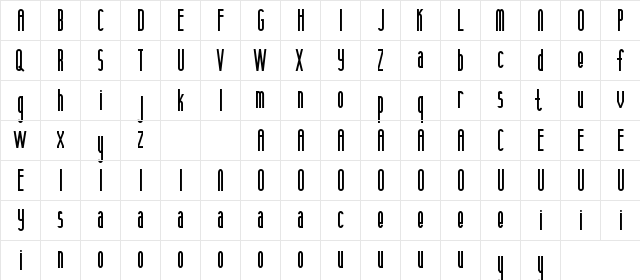
Anamelia Demo Condensed Regular
| Foundry | Edric Studio |
| Designer | Muhammad Deyan S |
Design Context for Anamelia Demo Condensed Typeface
Anamelia Demo Condensed is a composed and adaptable typeface that performs quietly and consistently across a wide range of design contexts. Its narrow stance lets it pack a punch even in space-constrained designs.